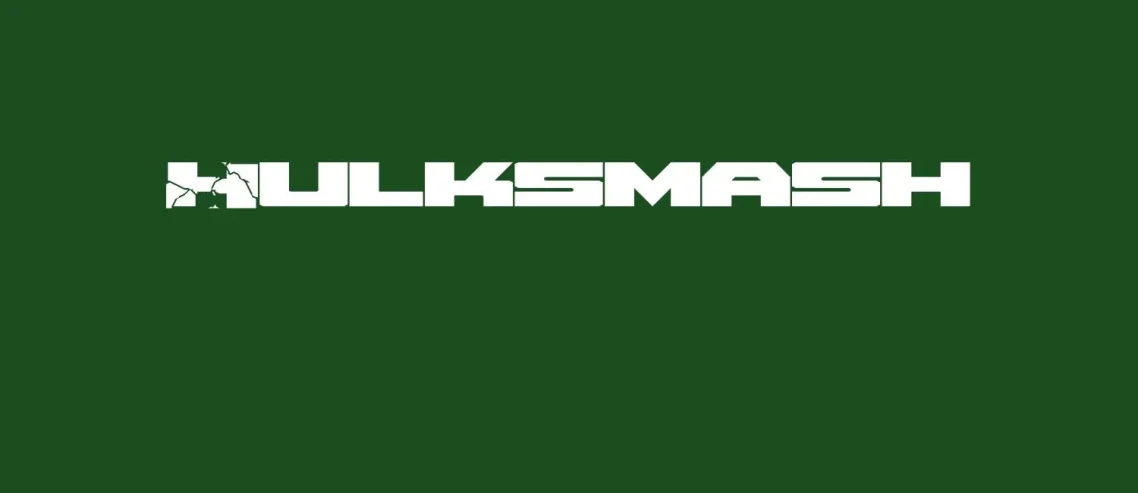
SmashType Studios introduces the HulkSmash Font, a bold and impactful typeface designed to make a statement. With strong, heavy lettering, this font is ideal for attention-grabbing headlines, posters, and branding that demand a powerful presence.
HulkSmash Font
The HulkSmash Font embodies strength and intensity, making it a go-to choice for designs that require a bold and assertive visual impact.